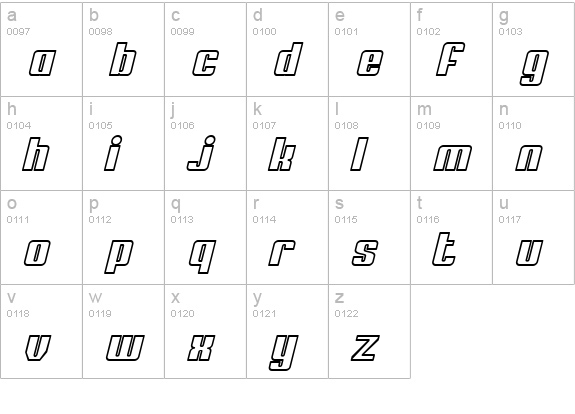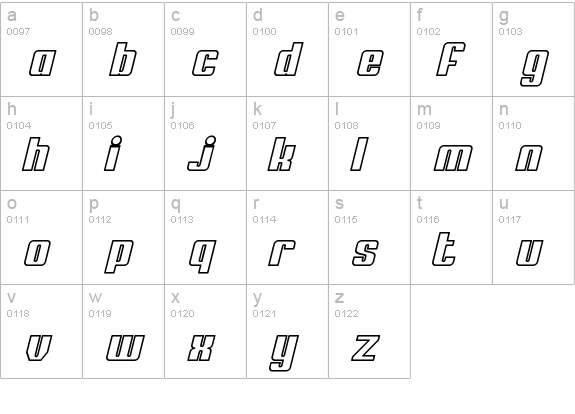
My Puma Oblique Outlined Font Details
My Puma Oblique Outlined is a distinctive, italic variant in the My typeface family \xE2\x80\x94 well suited to design and typography projects.
The Puma Oblique Outlined font is a sleek and modern typeface that exudes sophistication and creativity. With its unique oblique design and clean outlines, this font is perfect for making a bold statement in your designs. Whether you're working on a branding project, a poster design, or any other creative endeavor, the Puma Oblique Outlined font is sure to make a lasting impression. The best part? This font is available for free download at FontsMarket.com, making it easily accessible to designers and creatives looking to add a touch of elegance to their work. Don't miss out on the opportunity to elevate your designs with the Puma Oblique Outlined font today!